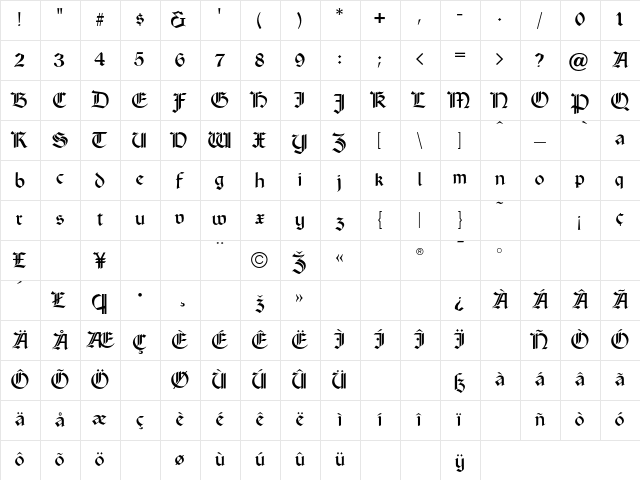
CourtHand Regular Free Font
CourtHand Regular
Foundry: Digitized by Dan X. Solo. Software Dover Publications, Inc
Design Context for CourtHand
CourtHand flows with the natural rhythm of handwritten lettering, making it ideal for designs that call for warmth and personal expression.
Font Pairing: Combine CourtHand with a simple geometric sans for maximum contrast - the tension between flowing curves and clean structure is a classic typographic pairing.
Pro Tip: Use CourtHand for short runs of text - names, titles, or taglines. Extended body copy in script faces tires the eye quickly.